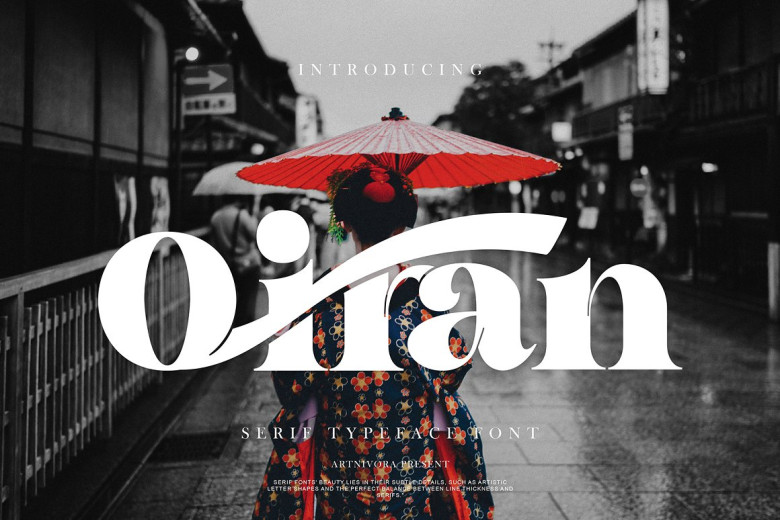
Oiran Font
Oiran is an elegant and striking serif font. You will fall in love with its amazing versatility as you use it to design gorgeous wedding invitations, stunning stationary pieces, Instagram posts and so much more.
Oiran Serif Font